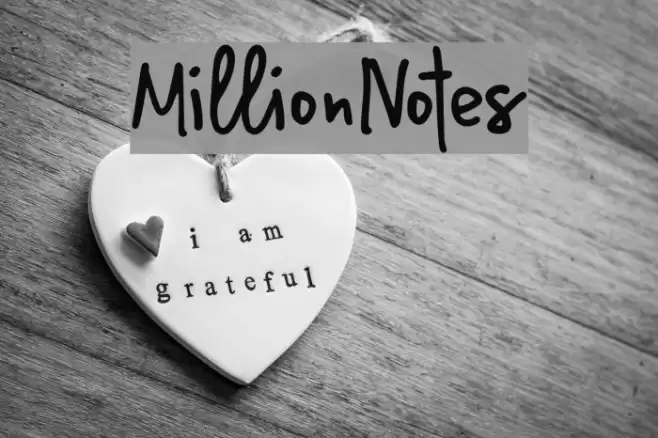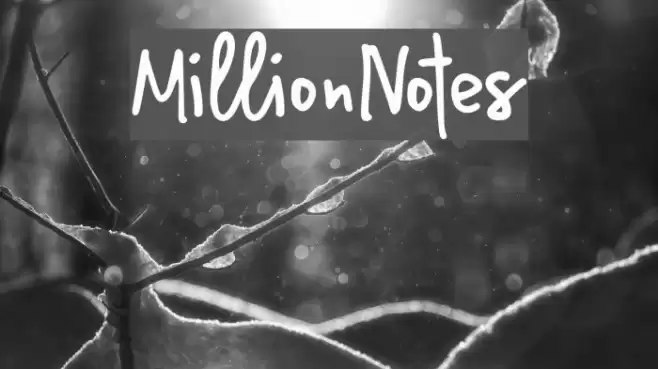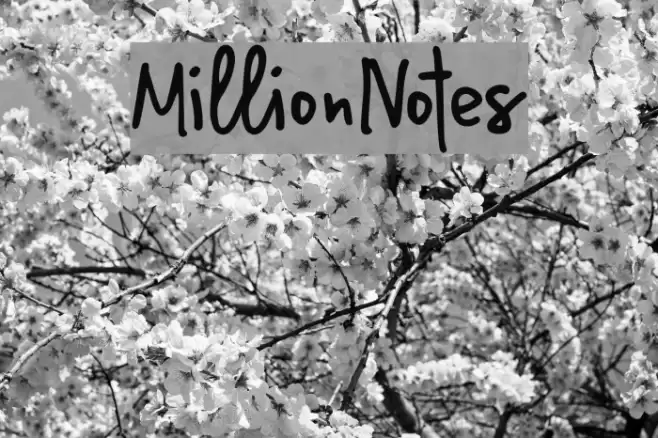
MillionNotes Font
MillionNotes Description
This font features a playful and casual handwritten style, characterized by its fluid and dynamic strokes. The uppercase letters are bold and slightly irregular, giving a sense of spontaneity and creativity. The lowercase letters maintain a consistent flow, with some characters extending below the baseline, adding to the font's informal charm. The overall appearance is friendly and approachable, making it suitable for projects that require a personal touch. The font's unique style is enhanced by its moderate contrast in stroke thickness, which adds depth without compromising readability.
| Use Case | Logos, Headlines, Informal Invitations |
| Proposed Projects | Ideal for greeting cards, personal blogs, creative branding, and social media graphics. |